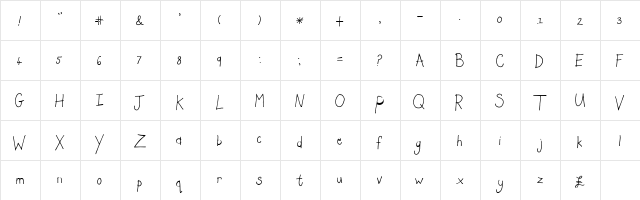
Marie Optional Font Preview
Marie Optional
Marie Optional Font Details
| Style | Optional |
Design Context for Marie Typeface
Marie is a composed and adaptable typeface that performs quietly and consistently across a wide range of design contexts.